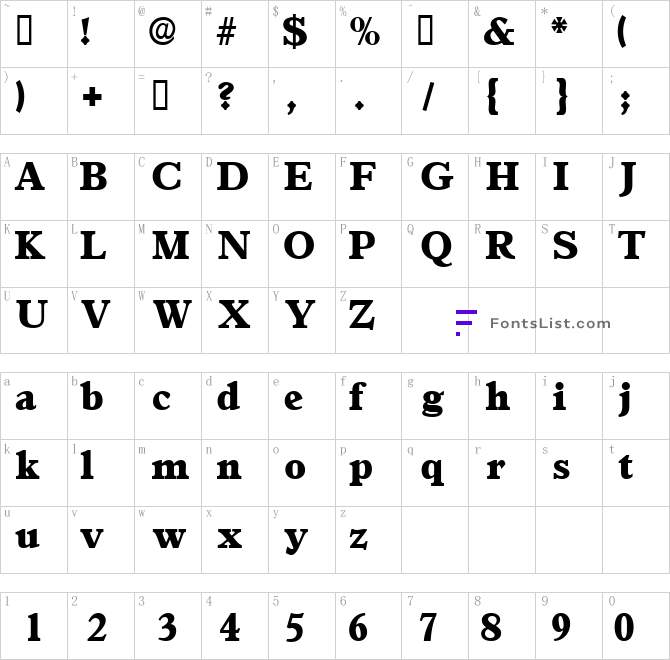
- Font Name:AgonicDisplaySSi
AgonicDisplaySSi.ttf is a very beautiful artistic font, AgonicDisplaySSi.ttf is widely used in the design and printing of various books and pictures,AgonicDisplaySSi.ttf has a strong visual impact,AgonicDisplaySSi.ttf is a commonly used font in newspapers, magazines and books, and is used in posters, e-commerce Poster design, store design, logo design, font design and other fields.AgonicDisplaySSi.